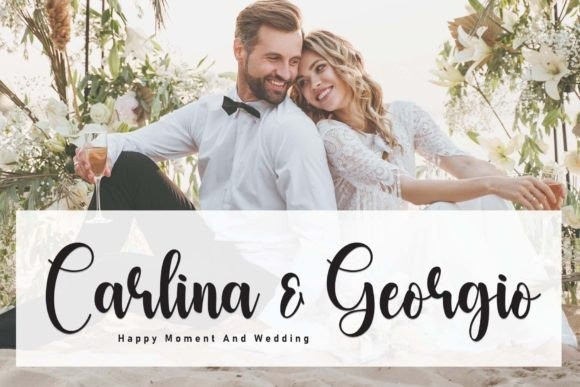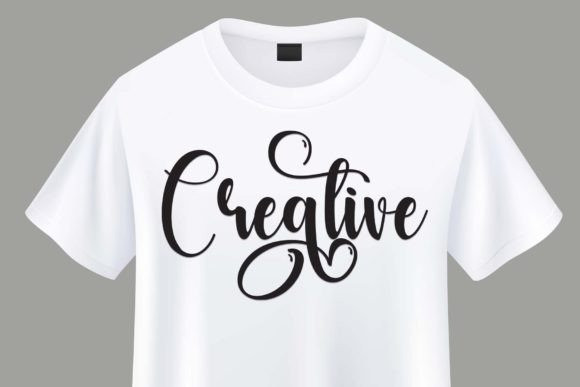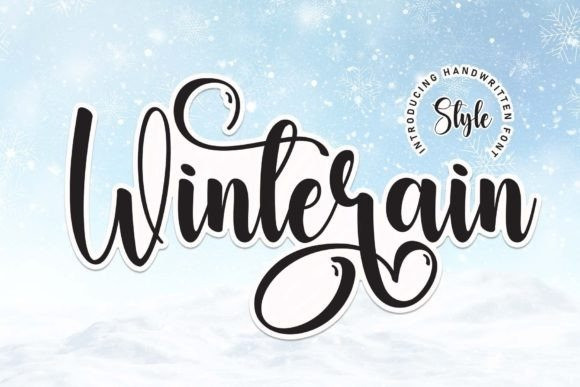
Winterain Script Font
Winterain Script Font is a sweet and friendly handwritten font. Its natural and unique style makes it incredibly fitting to a large pool of designs. The only limit is your imagination!